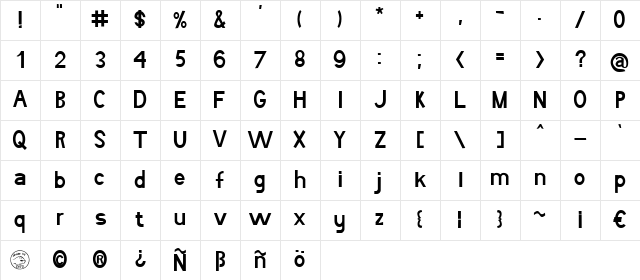
Boring Boron Regular
Foundry: [Divide By Zero] Fonts
Designer: Tom Murphy 7
Design Context for Boring Boron
Boring Boron is a composed and adaptable typeface that performs quietly and consistently across a wide range of design contexts.